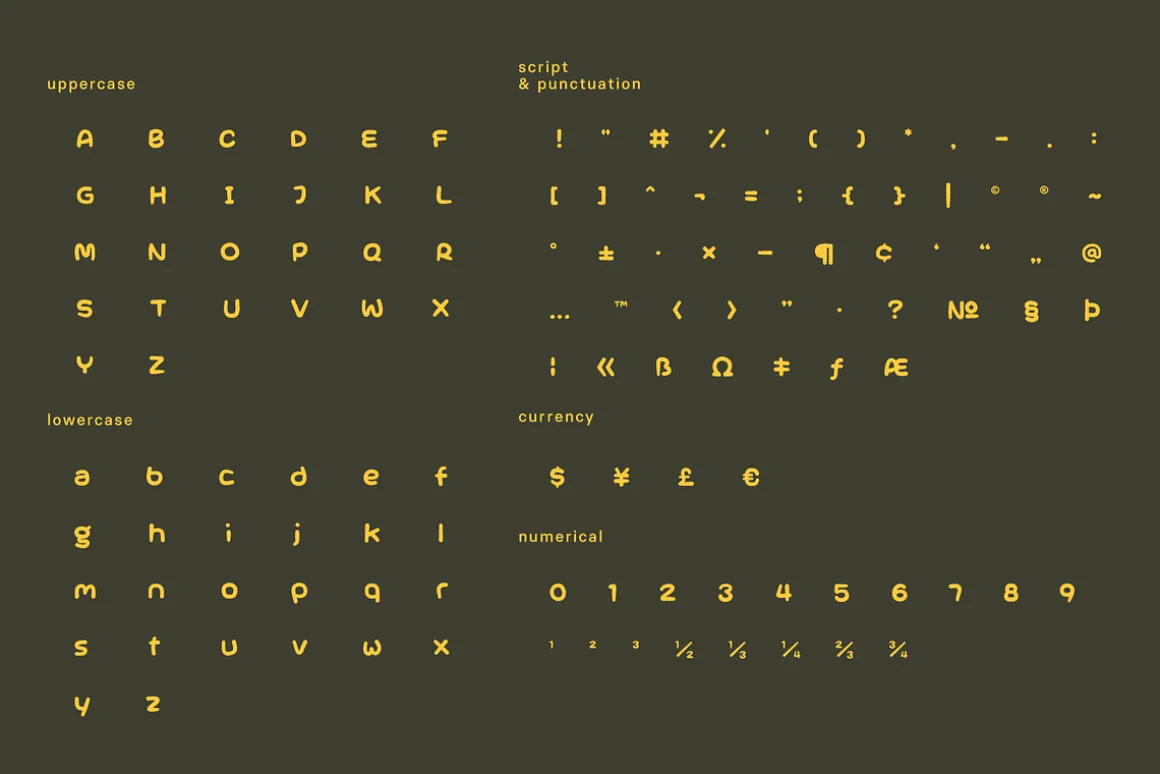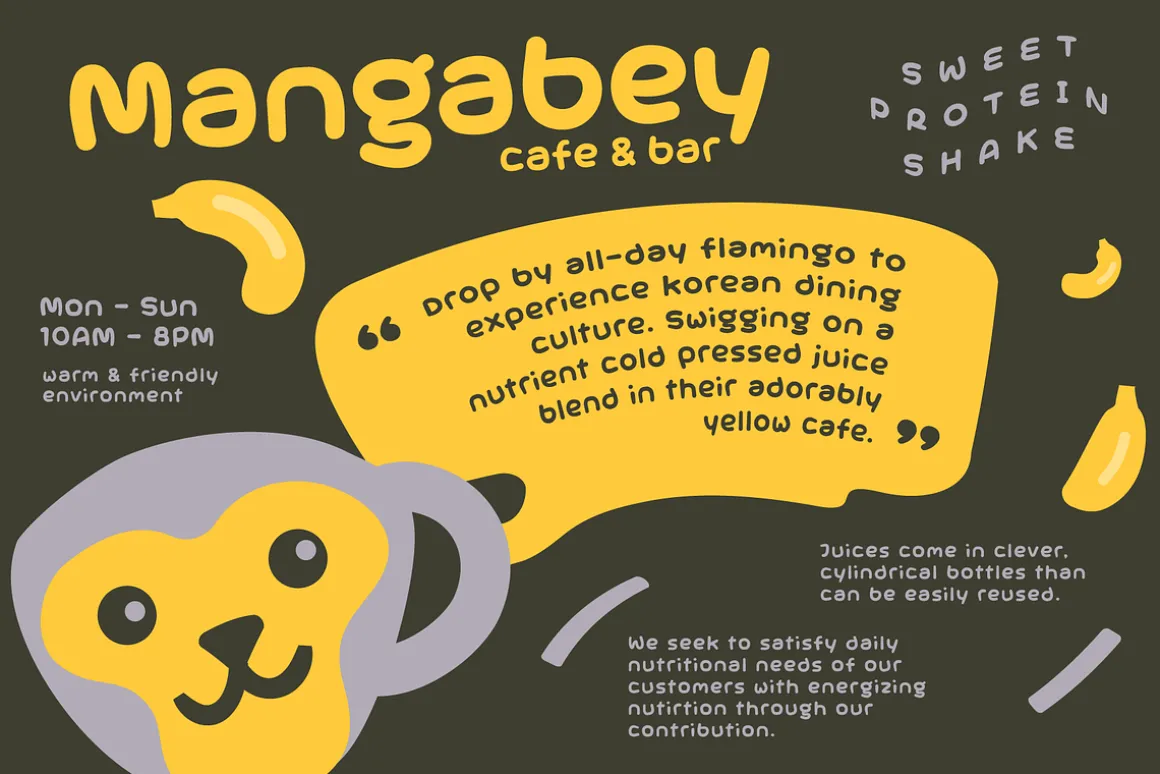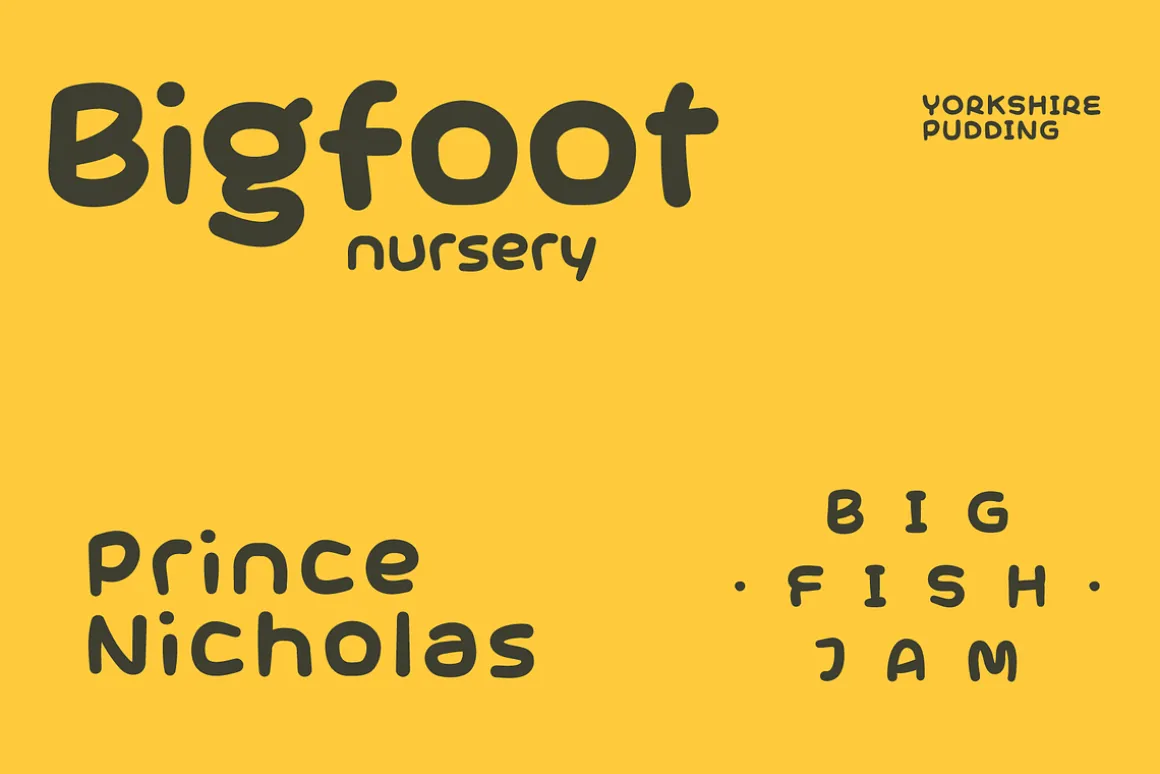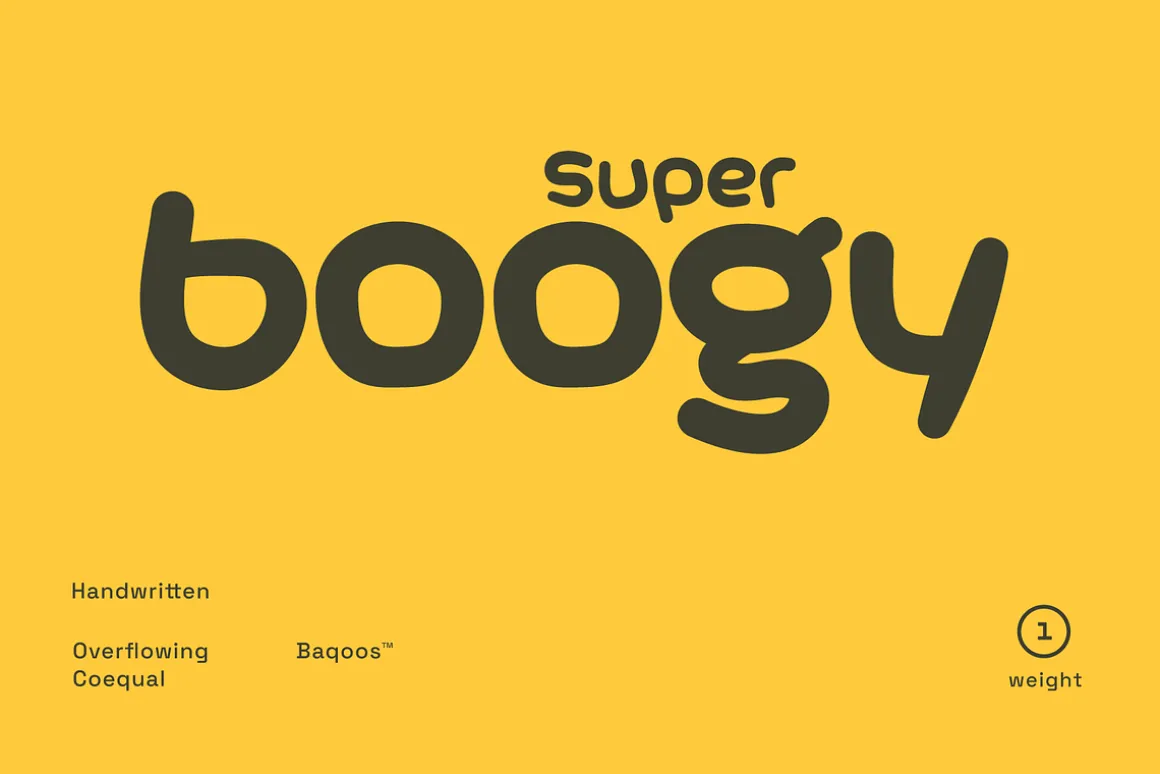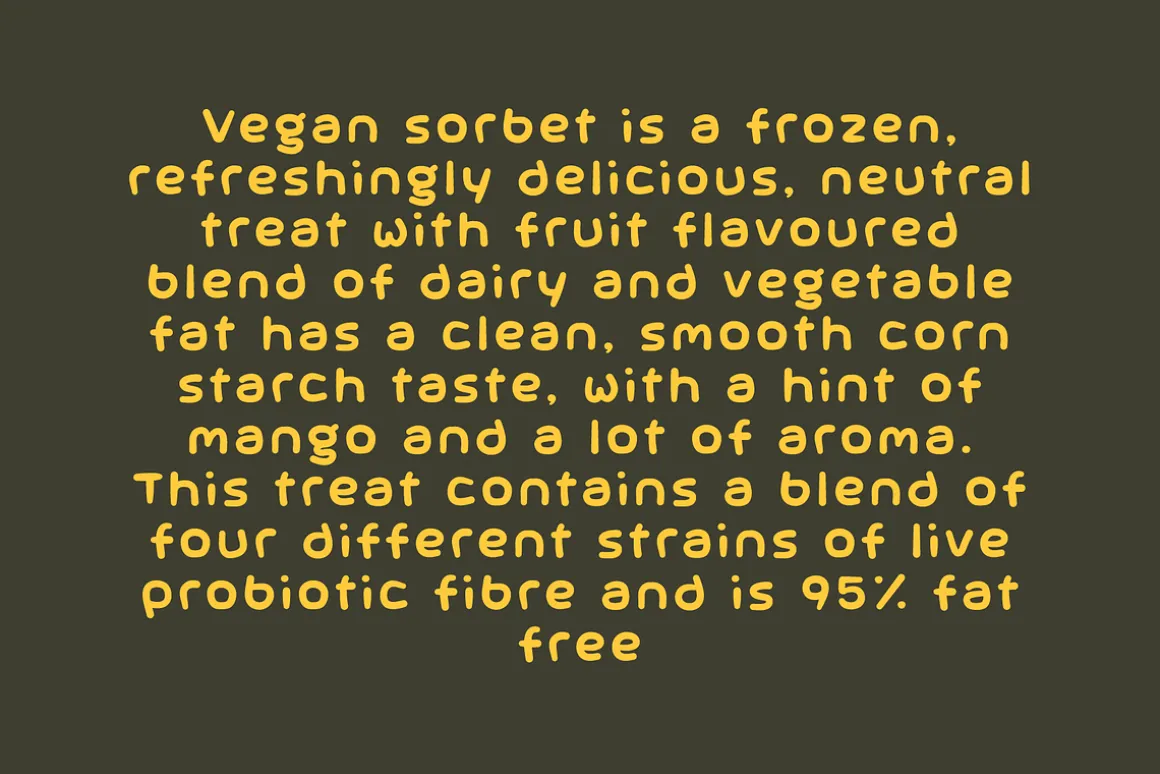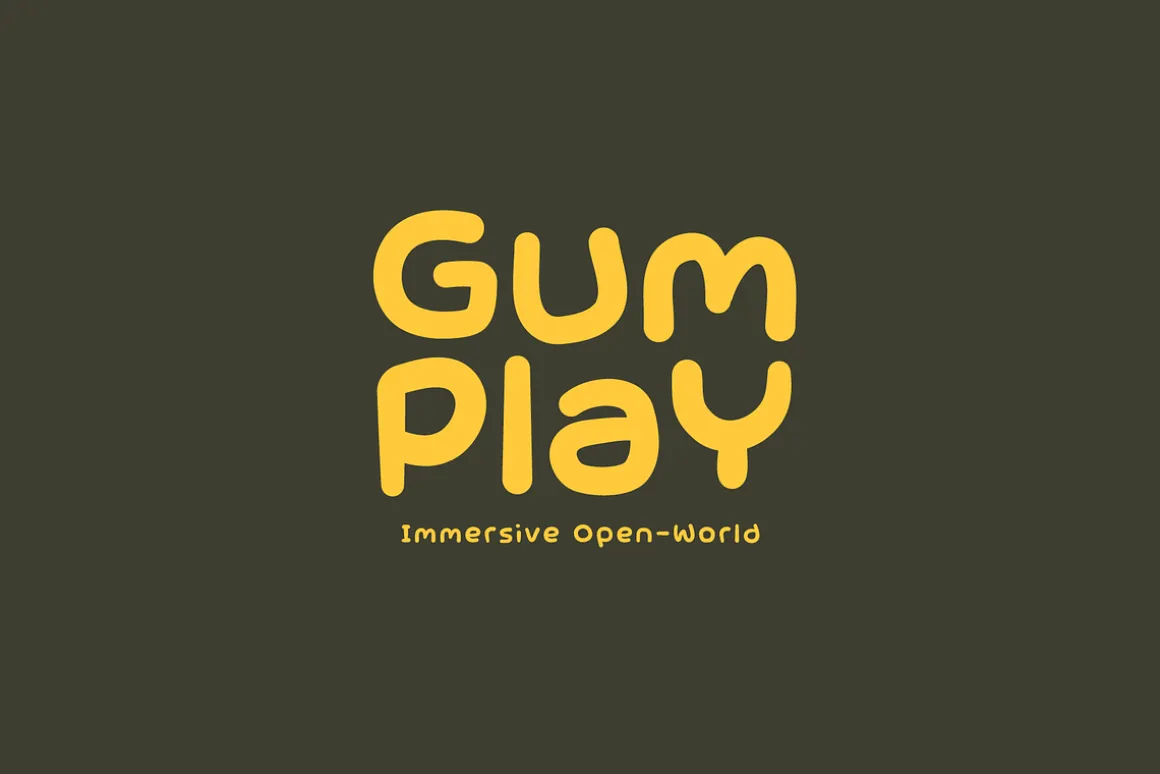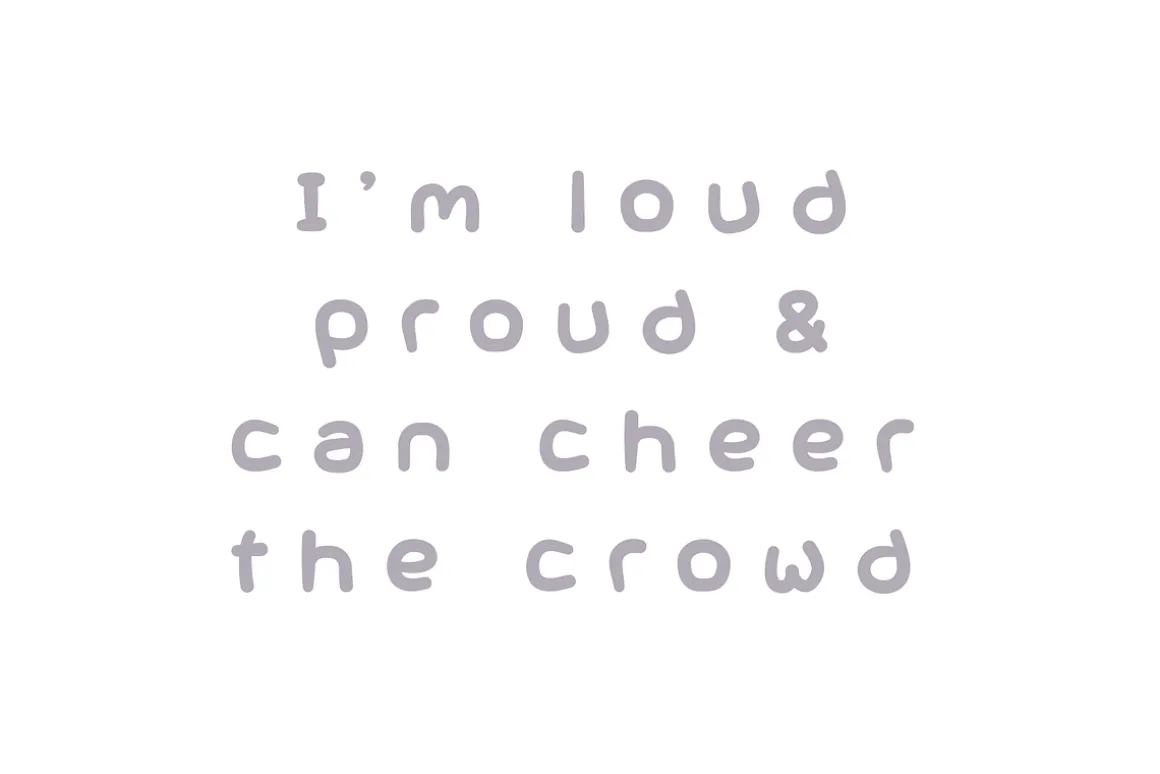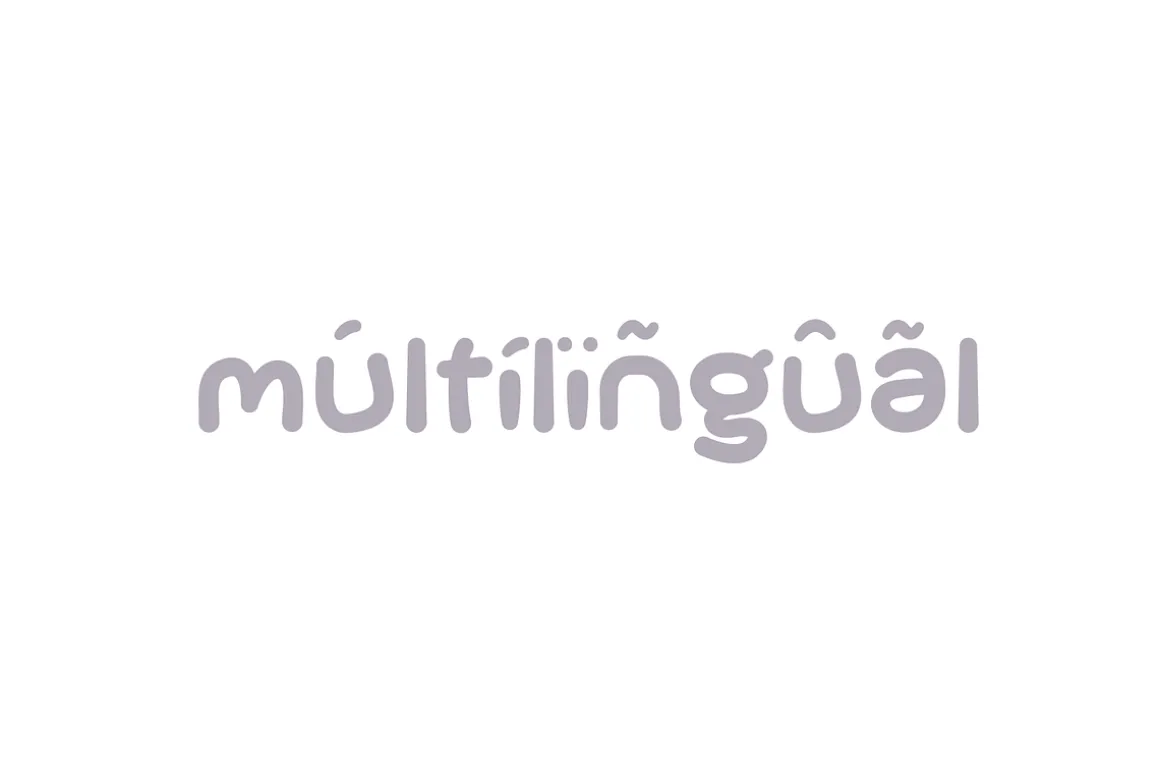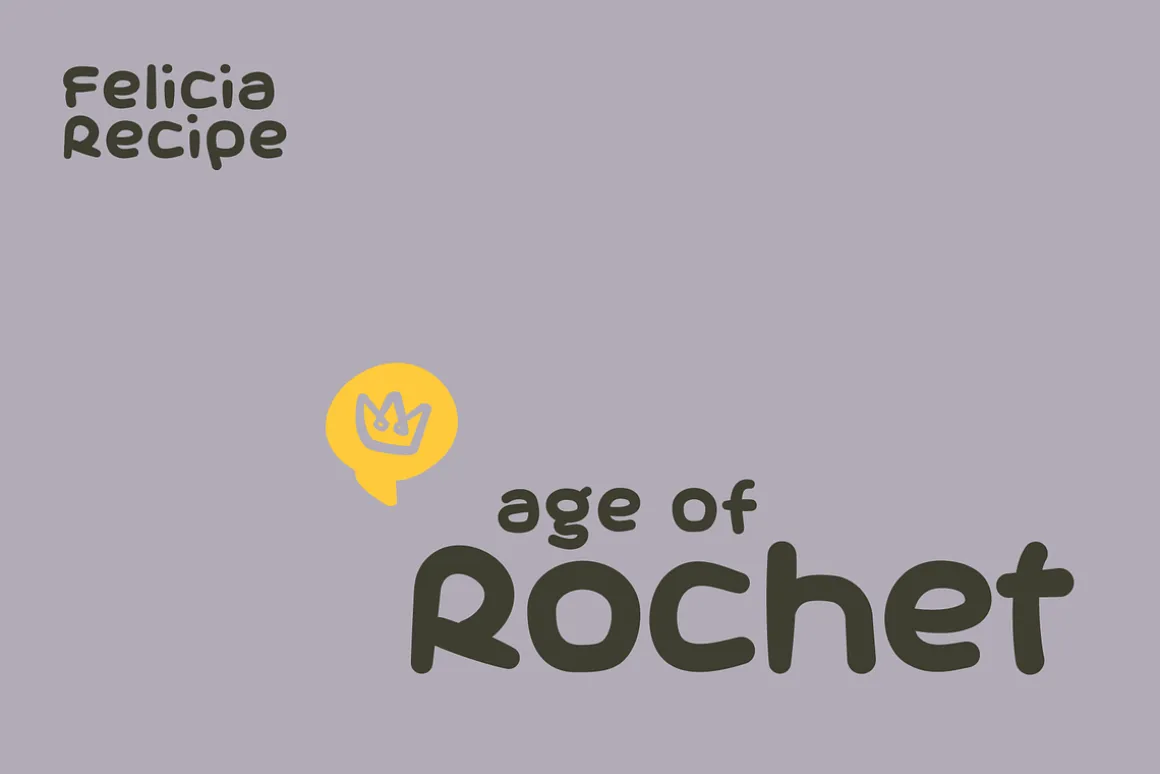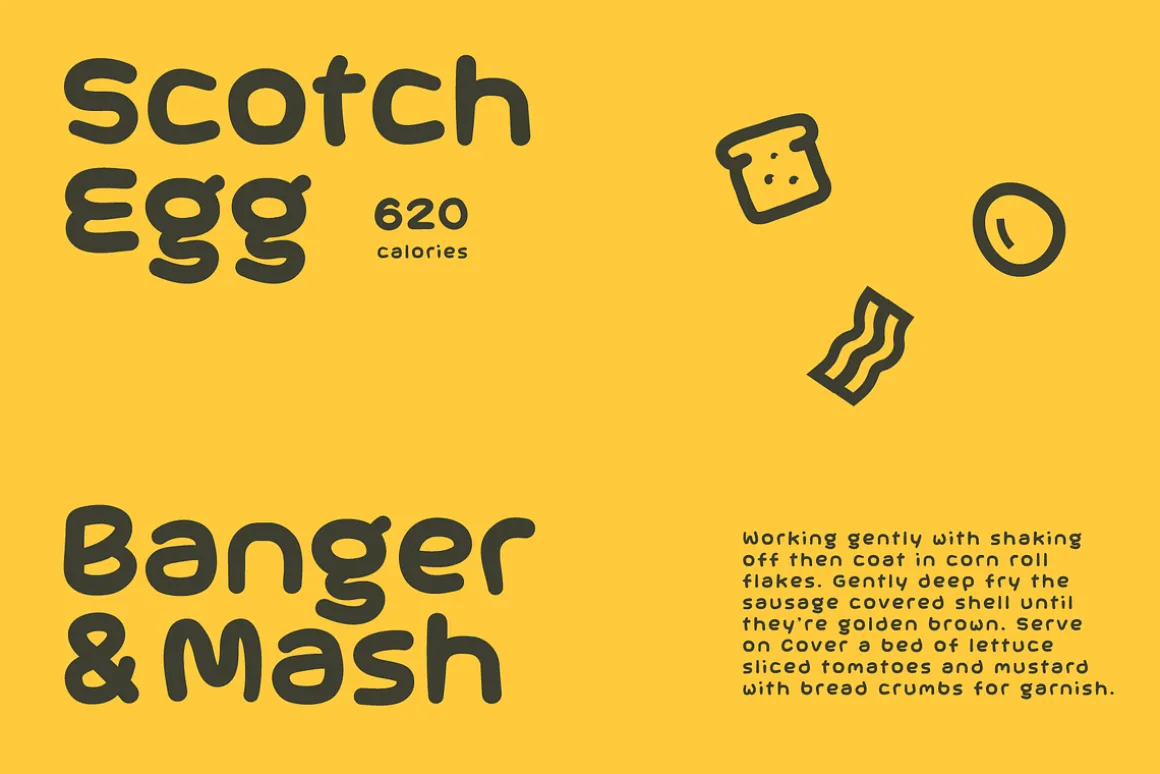
Bacboc is an overflowing coequal handwritten typeface apt for headline, editorial, branding, packaging, printed materials and typographic applications. 200+ glyphs including punctuation and numerical.